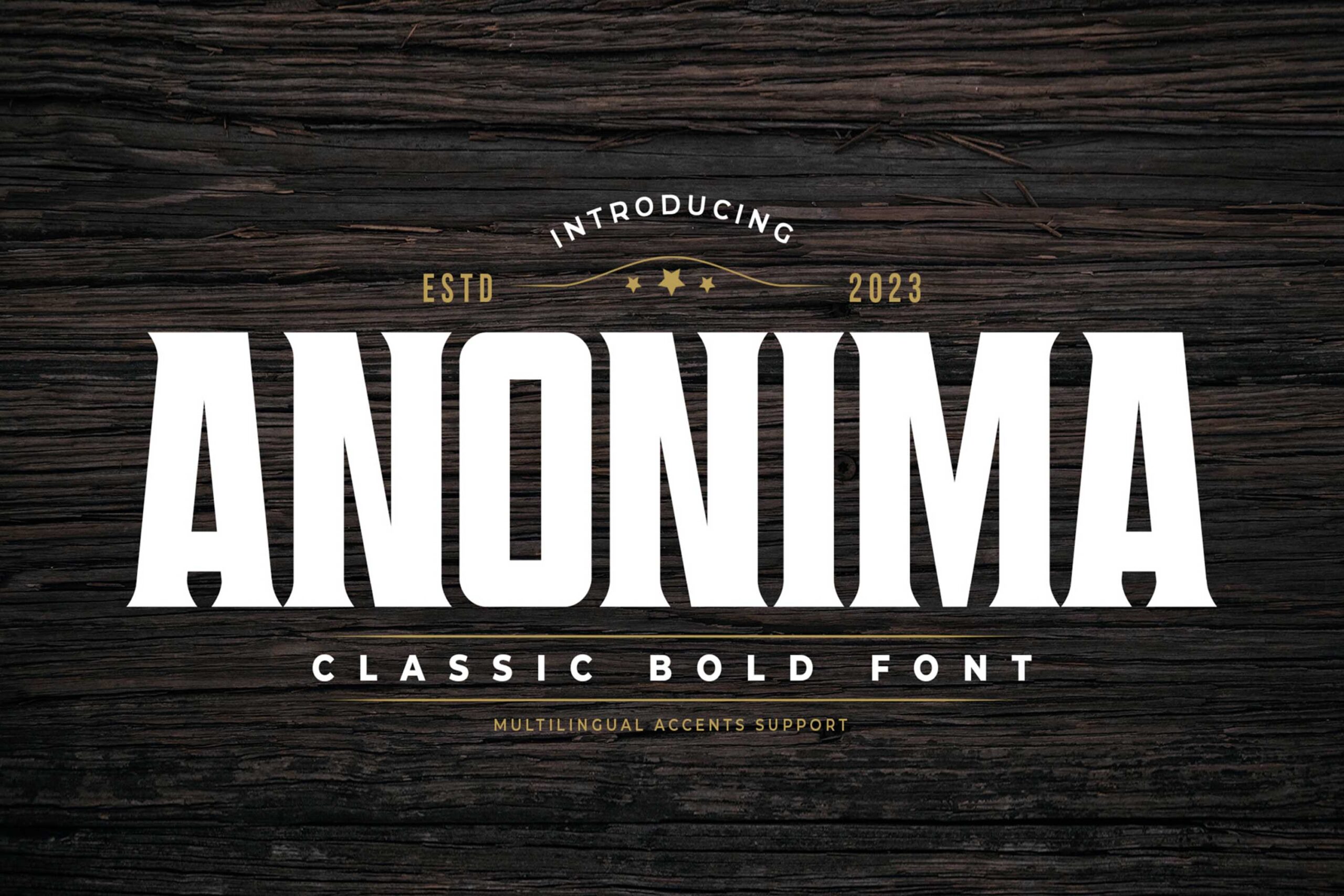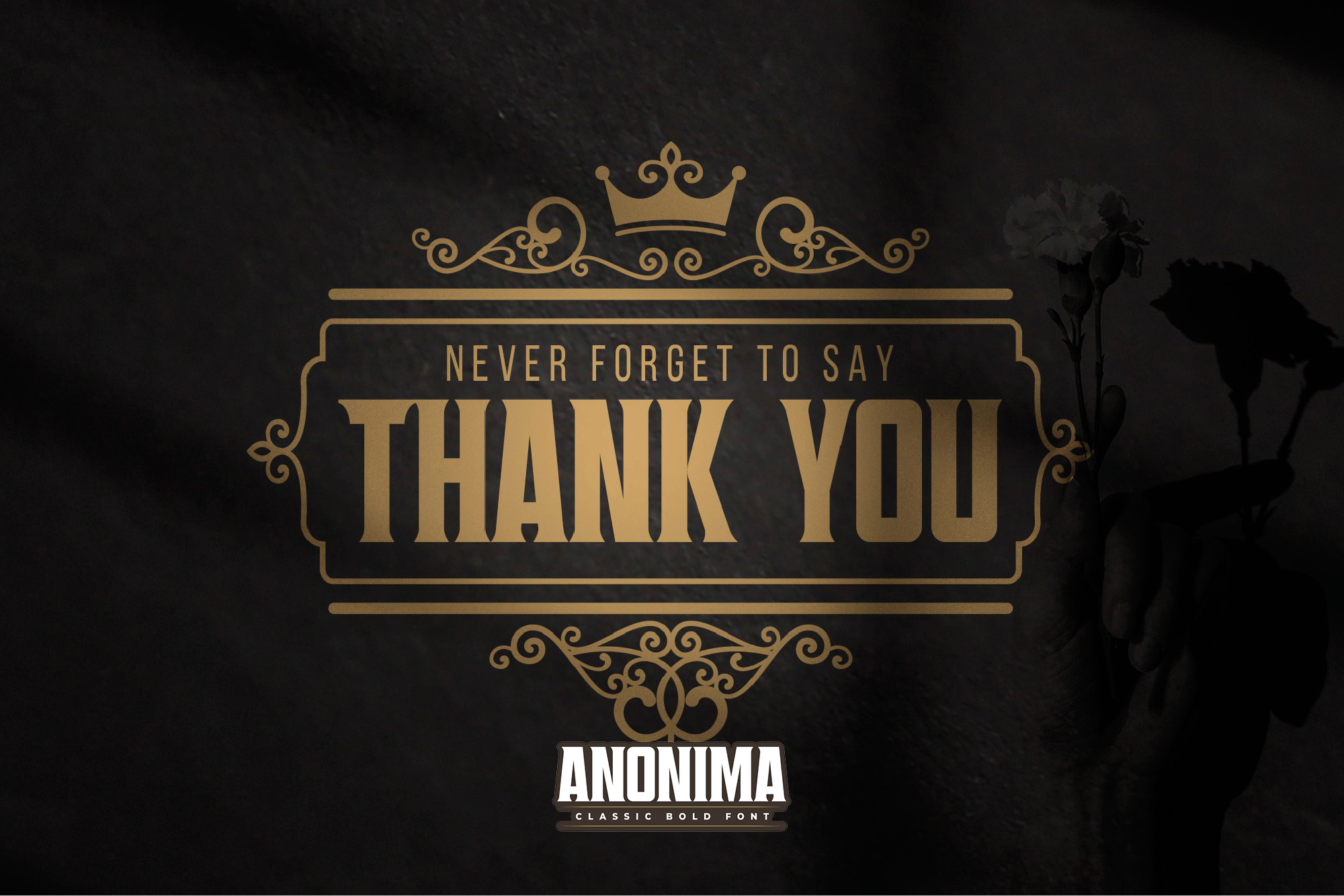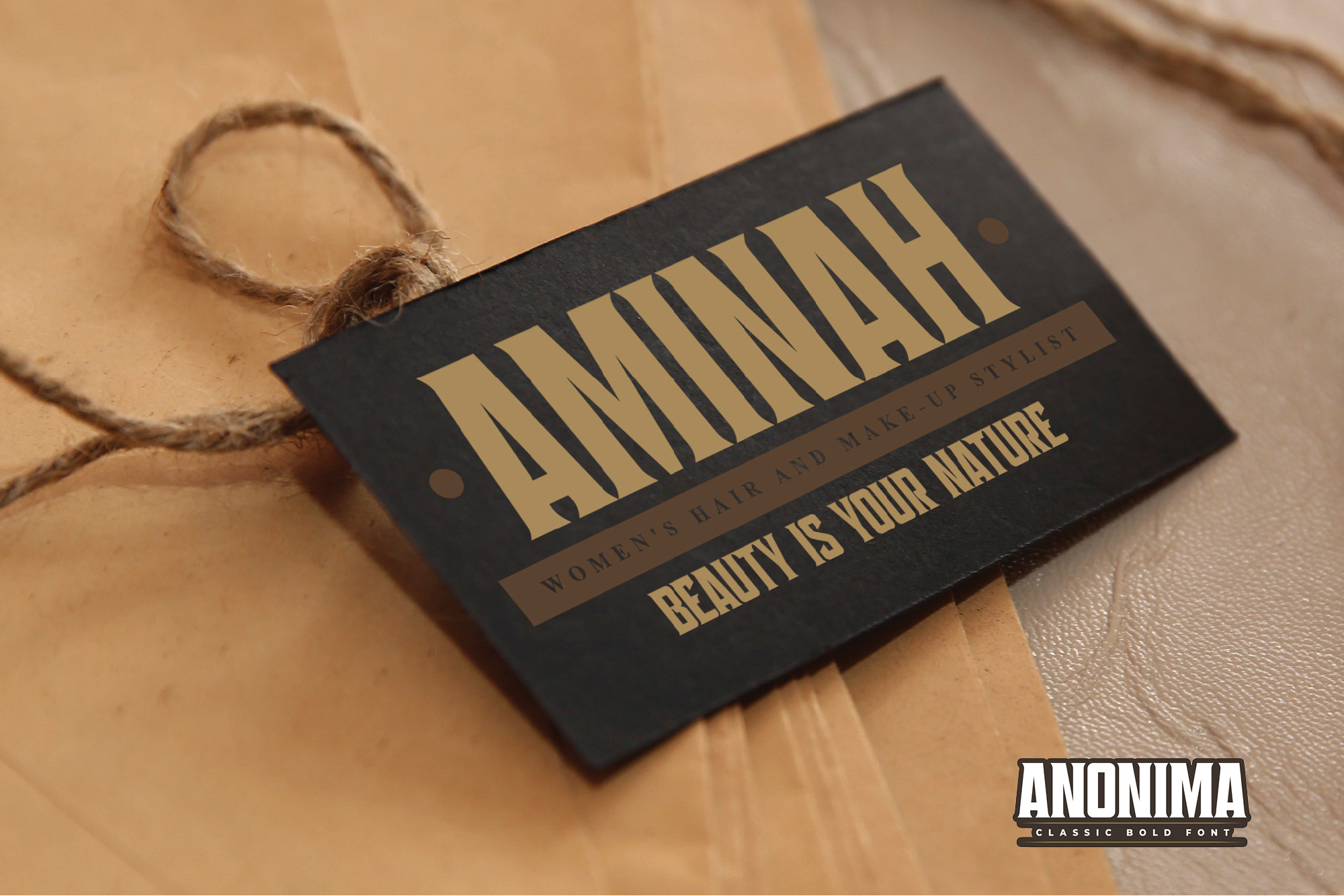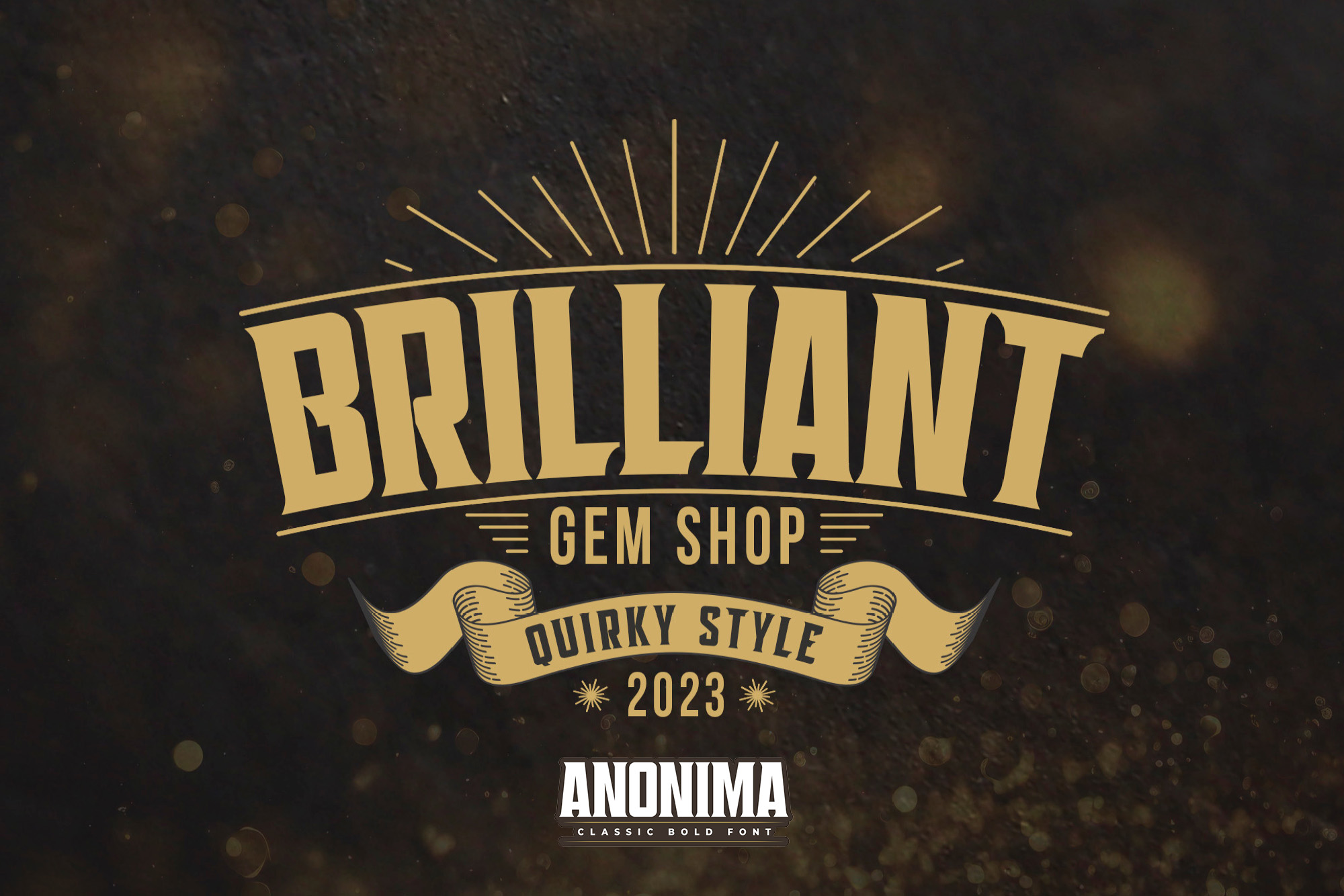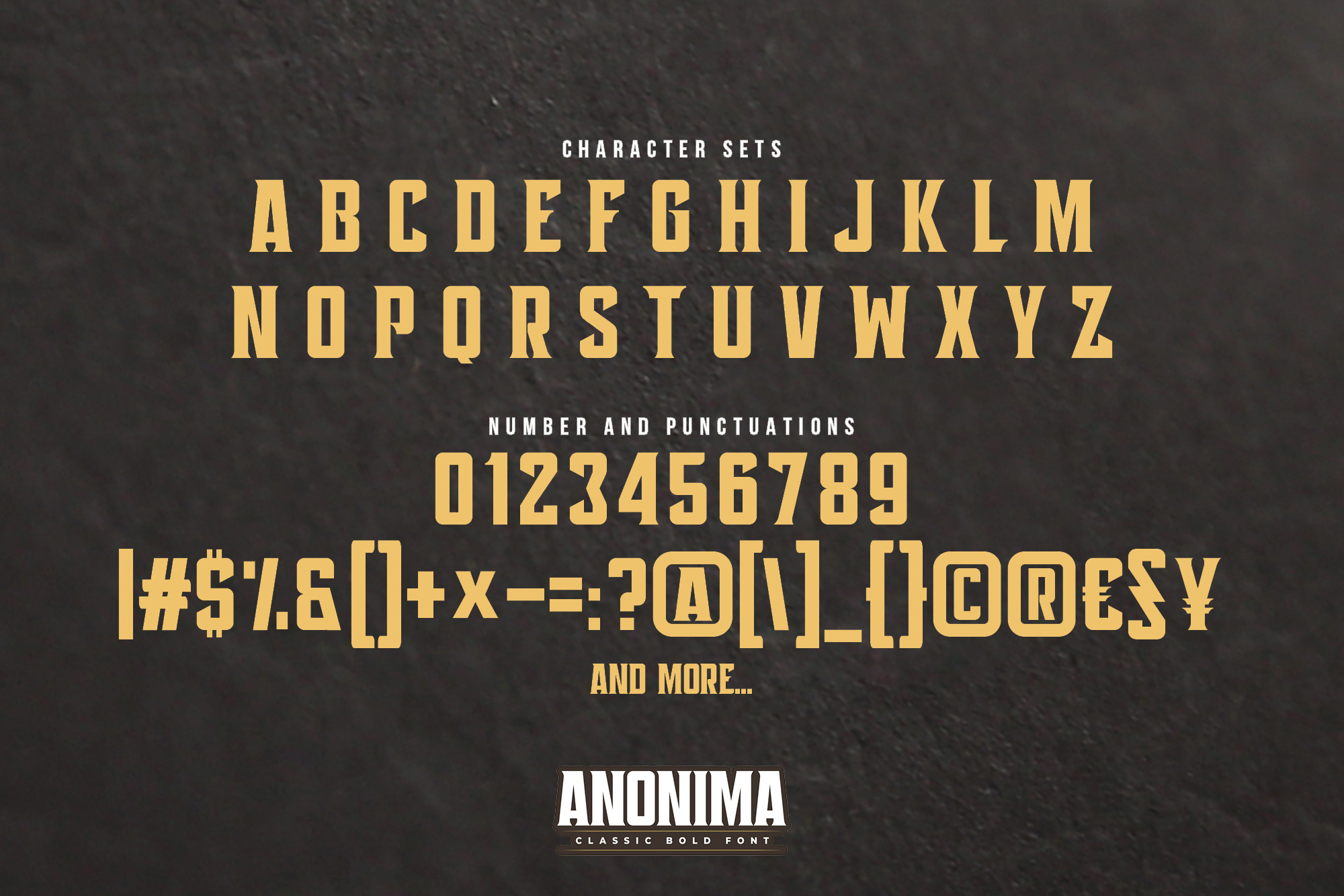
ANONIMA – Classic Bold Font , modern style and dramatic movement that is written casually and quickly.
The best for labels sport ,poster, project , designs look modern, rough and unique. It’s perfect for labels, quotes, posters, DIY projects, branding, packaging, greeting cards, websites, photography overlays, signs, scrapbooking, tags and so much more! That is why ANONIMA has a cool textured, and strong characteristic more natural look.